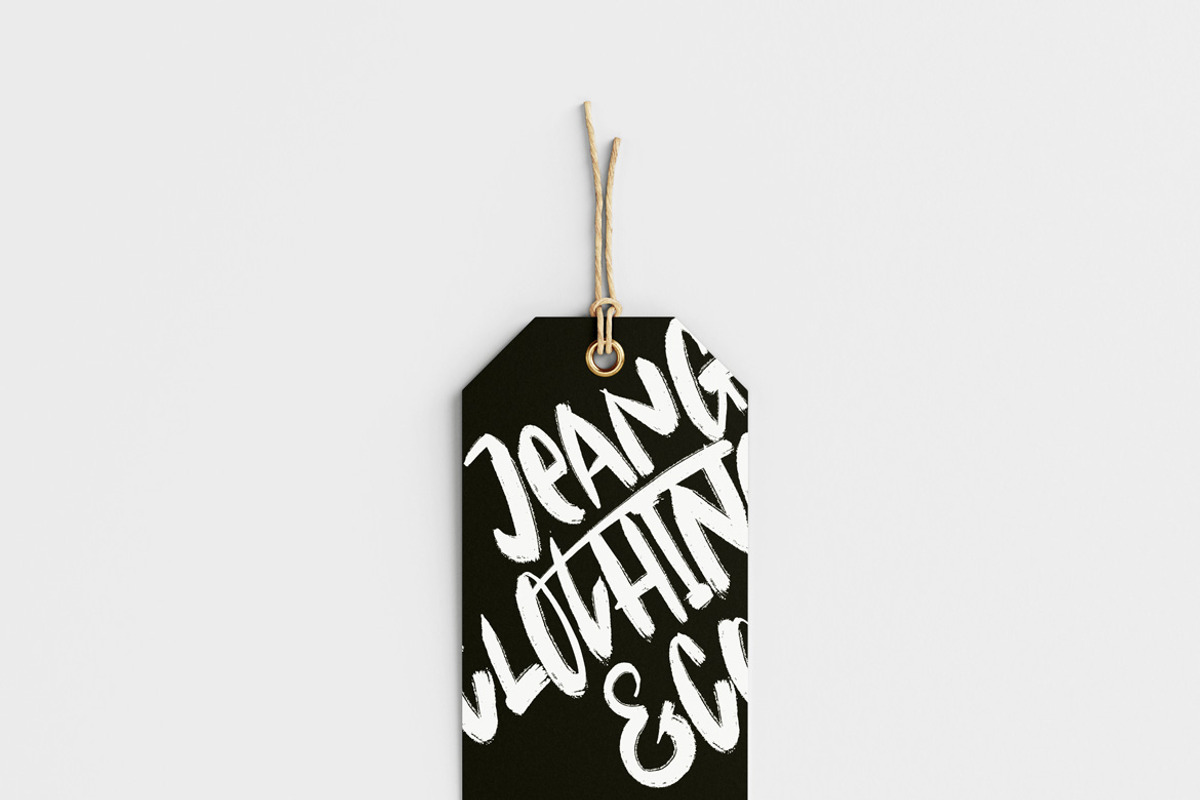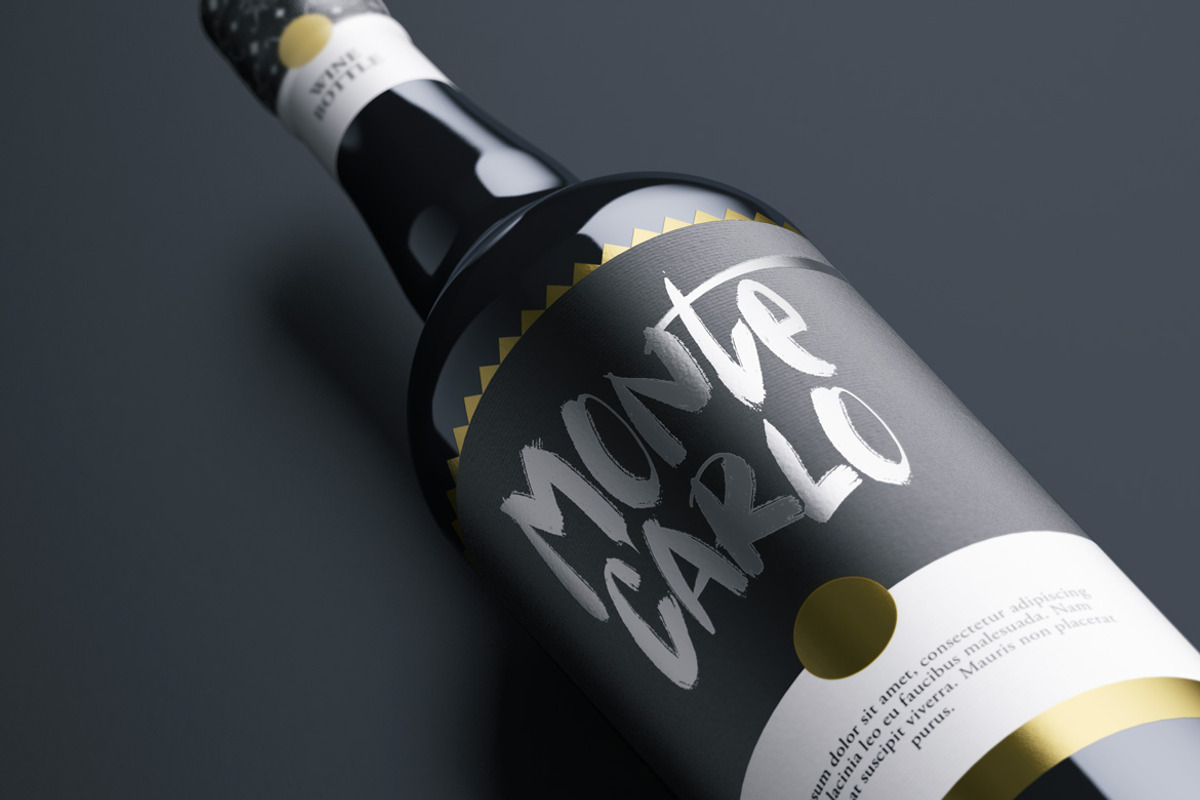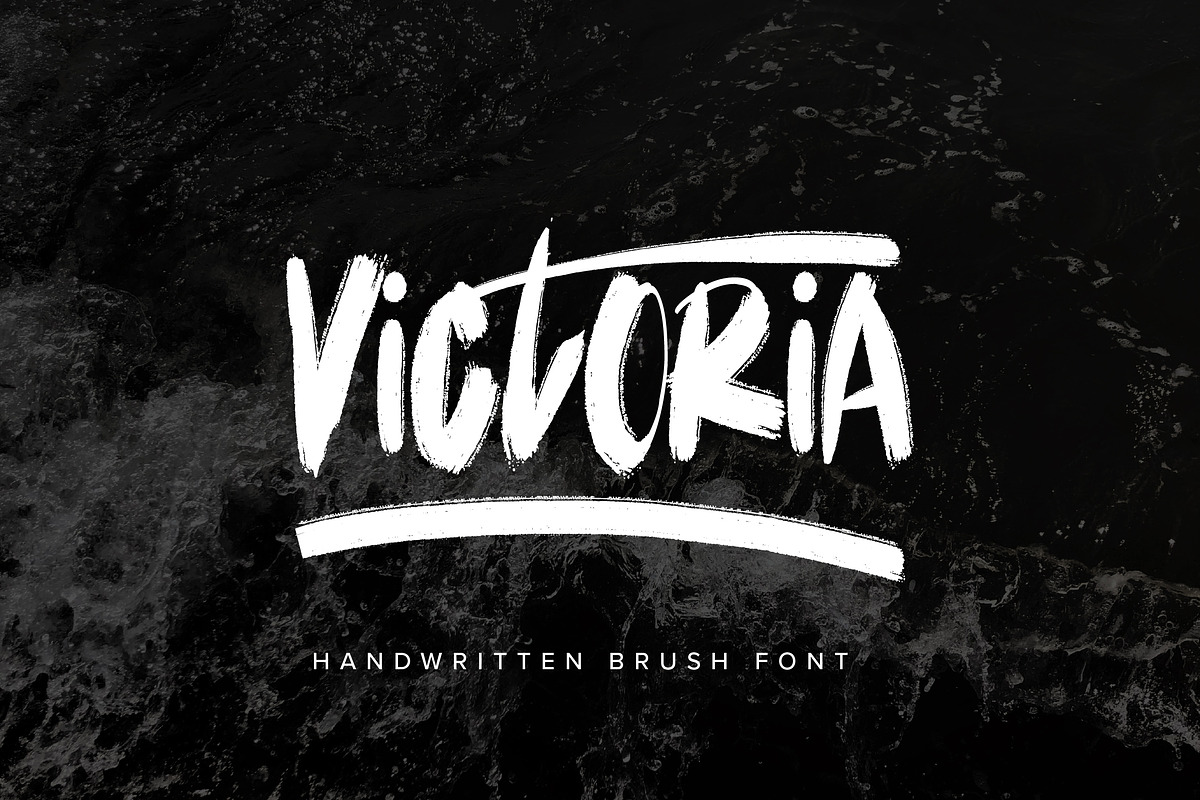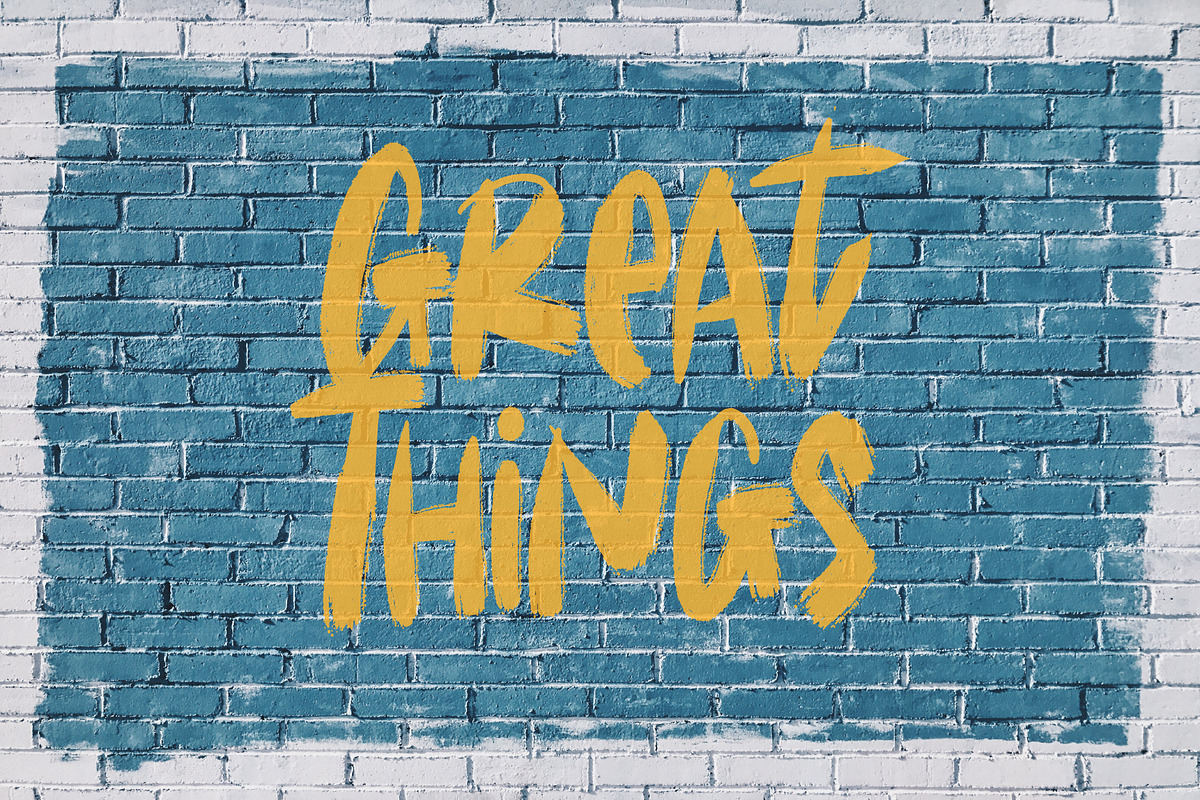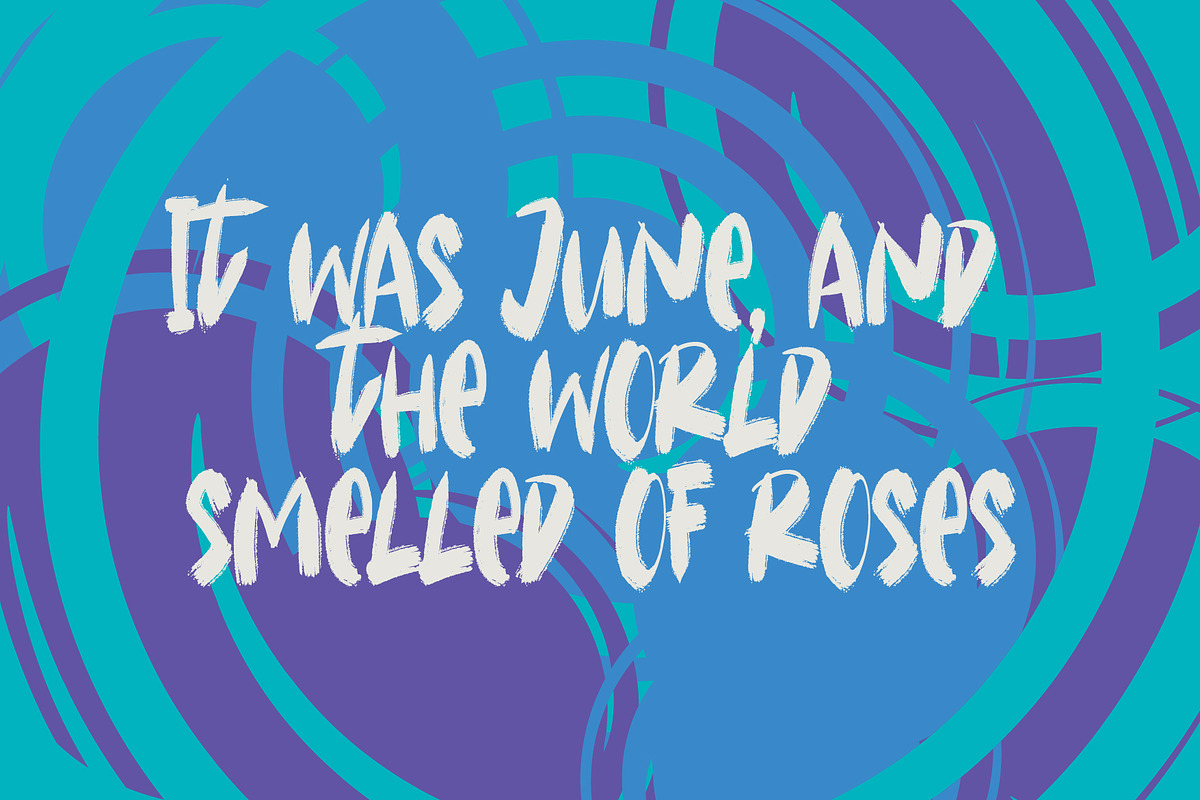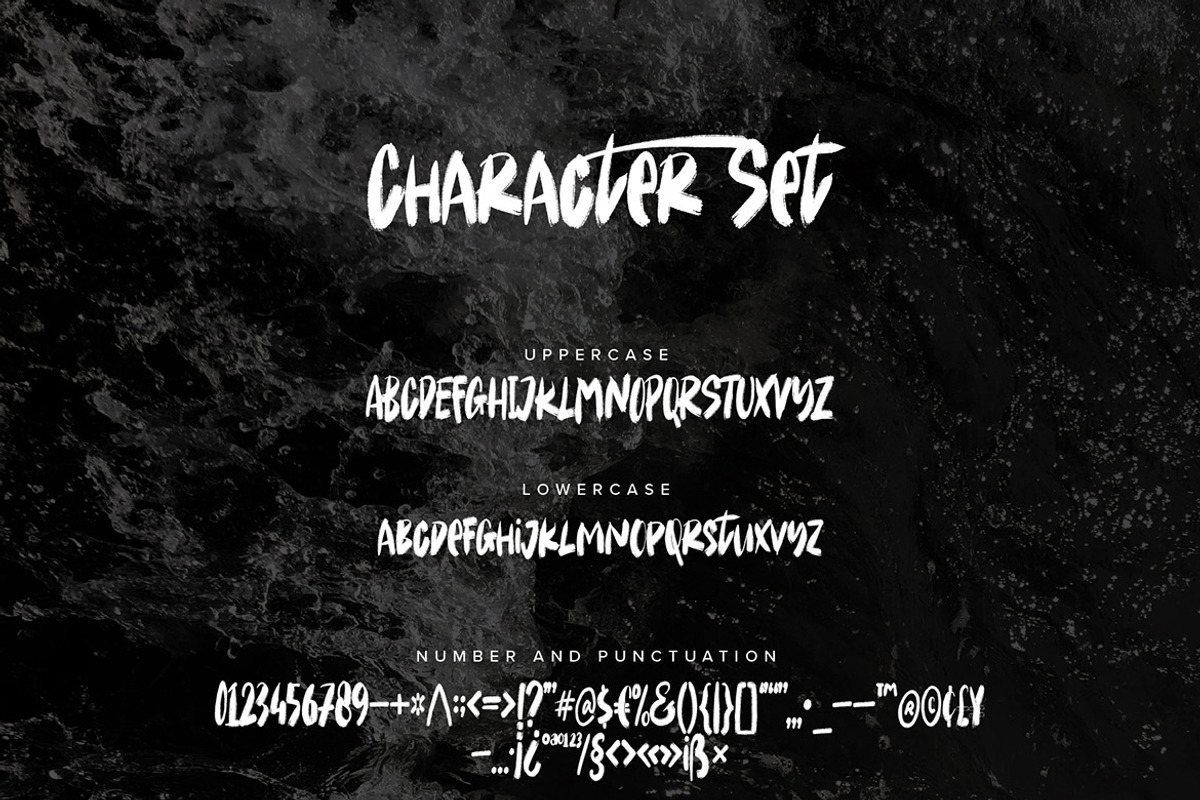
Victoria - Handwritten Brush Font
Victoria is a handwritten font created with brush style and to fit to use as branding project designs. It features an unique style and will add rough and natural feel to your upcoming projects. Get inspired by its unique feel and use it to create designs, posters, brand logo, product packaging and many more!